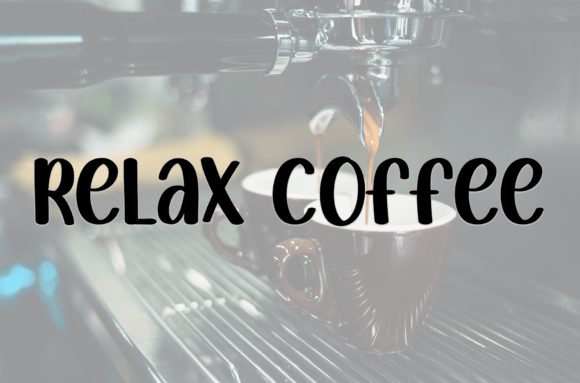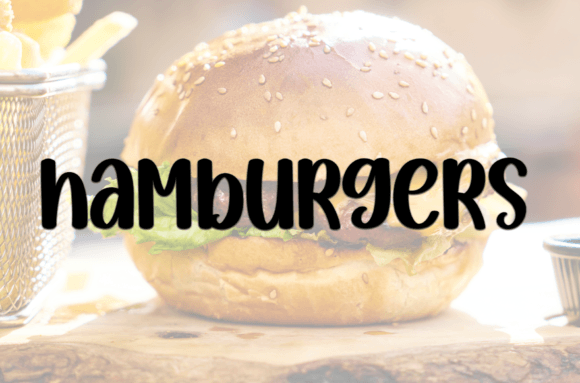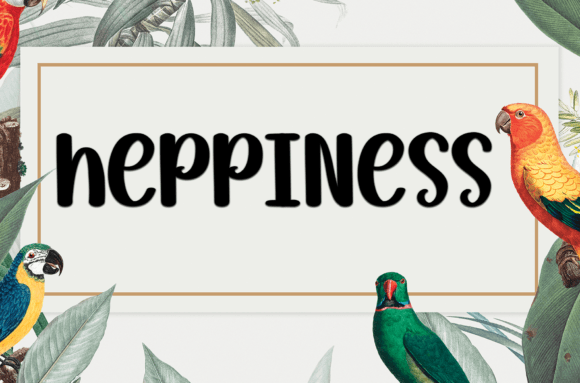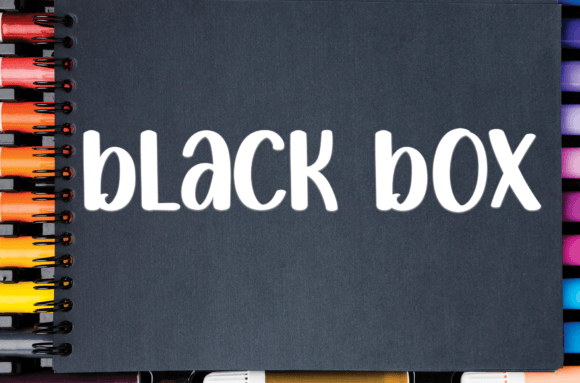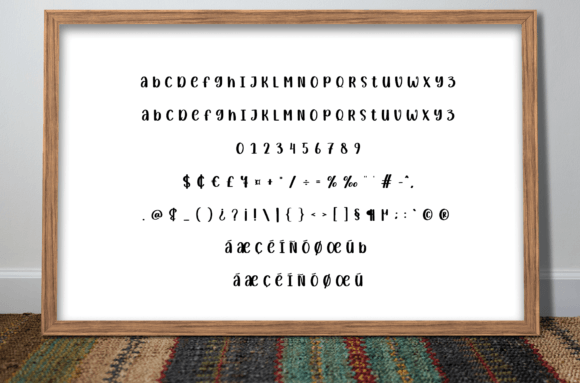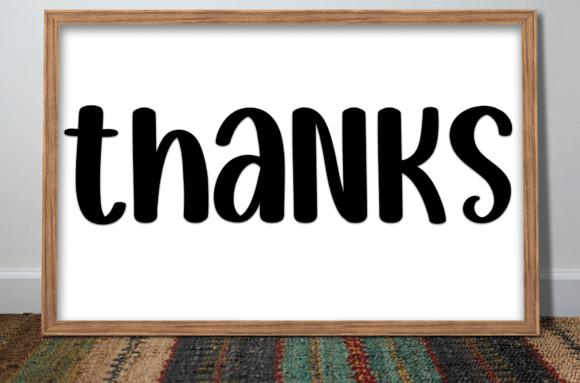
Introduction to Simple Product Font
Have you ever been brainstorming a creative project, only to find that the perfect font has slipped your mind? We’ve all been there – staring blankly at a blank canvas, desperately searching for the right design element to bring our vision to life. But what if I told you there’s a font that can instantly inject a touch of joy and personality into your next project?
Meet the Simple Product Font, a sweet and friendly handwritten font that’s sure to put a smile on your face. With its fun and relaxed vibe, this font is the perfect addition to any design that needs a little extra love. Whether you’re crafting wedding invitations, designing cards, or working on a personal project, the Simple Product Font is a valuable resource that’s sure to elevate your creative game.
Key Features of Simple Product Font
- High-quality design: This font is carefully crafted to provide a clean and modern look for your creative project, making it perfect for various design applications.
- Transparent background: The font features a transparent background, allowing for easy customization and seamless integration with your design.
- Unique characteristics: The Simple Product Font features a unique, modern design with clean lines and a minimalist aesthetic, making it an excellent choice for creative projects that require a touch of sophistication.
Honest Review: Simple Product Font
- The font has a clean and modern design, perfect for any product or e-commerce website.
- The transparent background makes it easy to use with any image or background.
- The font is highly legible, even at smaller sizes.
- The font only comes in a few styles (bold, regular, and italic).
Use the Simple Product Font on a transparent background to give your design a clean and modern look. Experiment with different font sizes and styles to create a unique visual effect. You can also pair the font with other design resources, such as graphics and icons, to create a cohesive design.
The Simple Product Font is perfect for use in e-commerce designs, such as product labels and packaging. It’s also great for use in marketing materials, such as flyers and brochures. With its high-quality design and transparent background, the Simple Product Font is a versatile resource that can be used in a variety of creative projects.